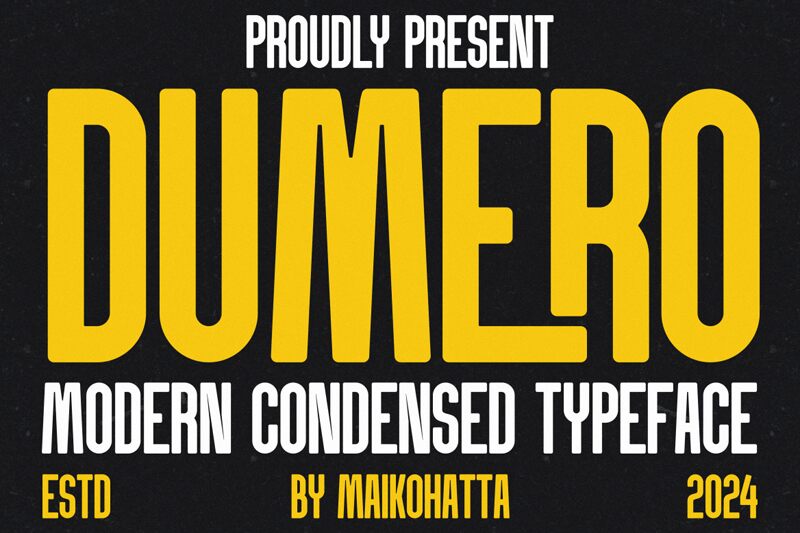
DUMERO
Dumero font was designed by Gilang Ternadho and is a sans serif typeface with regular, bold, and light versions. The lightweight version is included in this package for free use which combined with the standard and heavy versions offers massive potential. Between professional and casual structures.
Use Dumero in industrial magazine cover design, printed materials as posters or packaging typography, web typographic layouts for apps, websites or landing pages, logos of brands that want to leave a lasting impression on their customers.